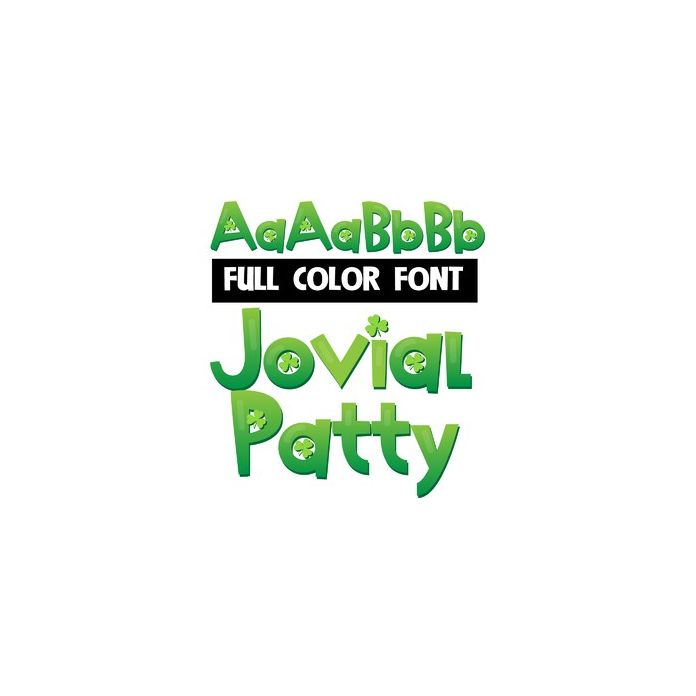
This full-color font features a gradient of green and shamrocks. This font works best for titles, displays, posters and more. Please note color fonts will show as black in non compatible programs. This font type is compatible with Silhouette Studio.